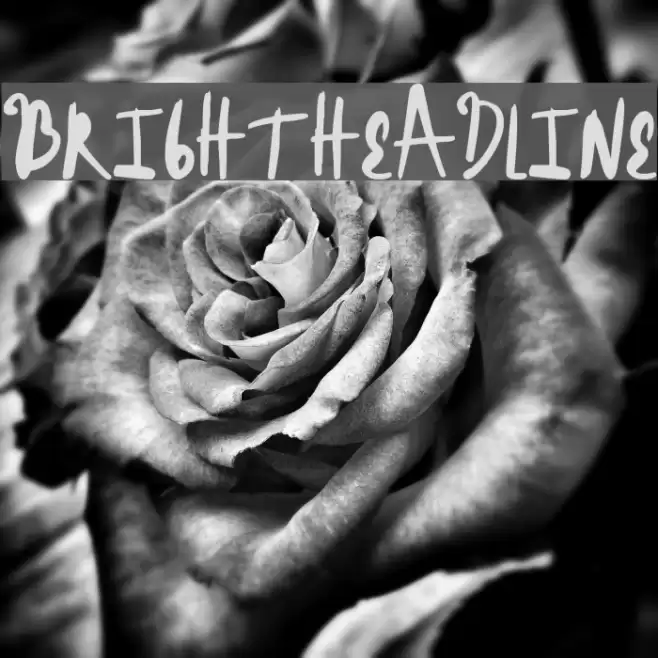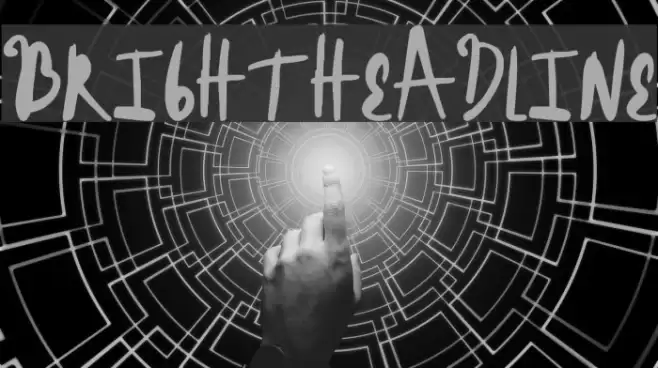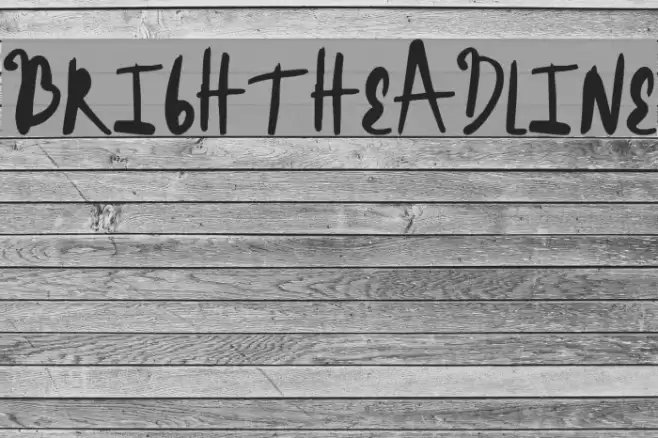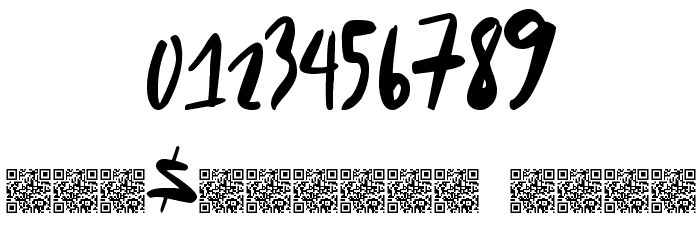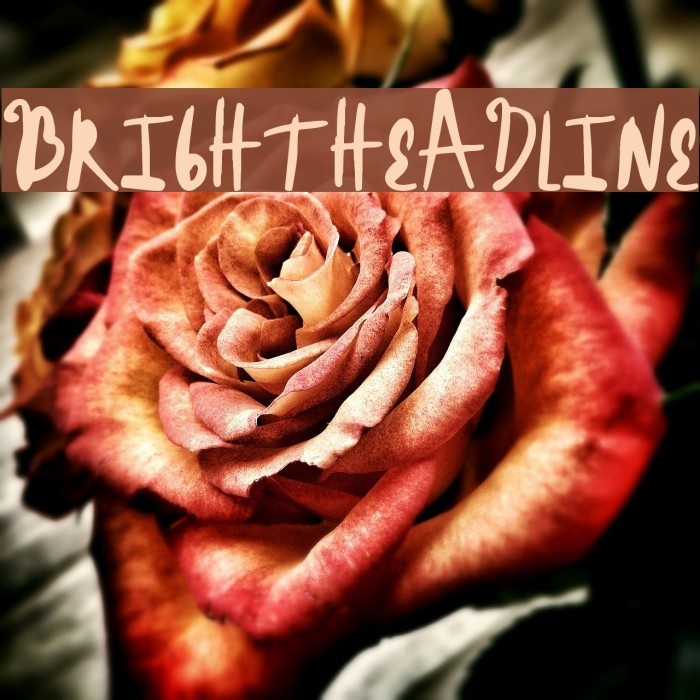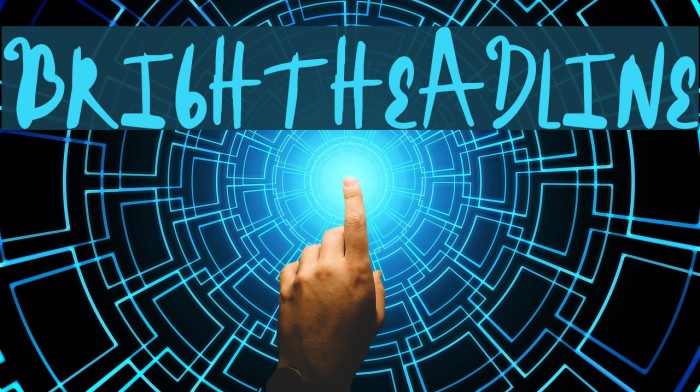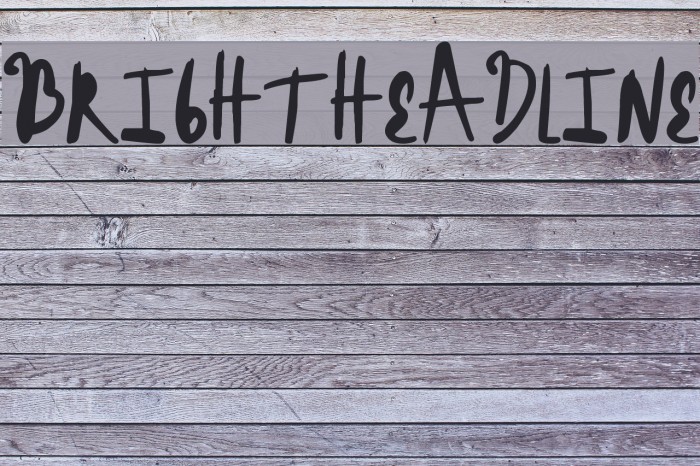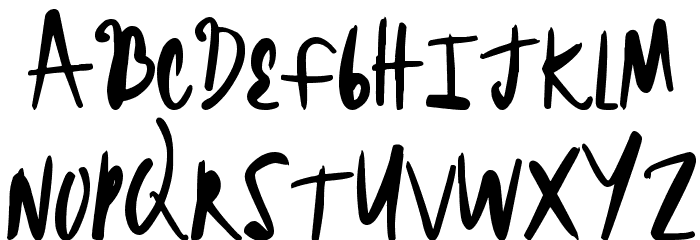
This font exudes a bold and expressive handwritten style, characterized by its dynamic and fluid strokes. The uppercase and lowercase letters maintain a consistent yet lively appearance, with varying stroke widths that add a sense of movement and energy. The numbers and special characters are crafted with the same attention to detail, ensuring a cohesive look across all glyphs. The font's playful and informal nature makes it ideal for projects that require a personal touch or a creative flair. Its unique style is both eye-catching and memorable, making it suitable for a variety of design applications.
A bold, expressive handwritten font with dynamic strokes from Handwritten fonts.